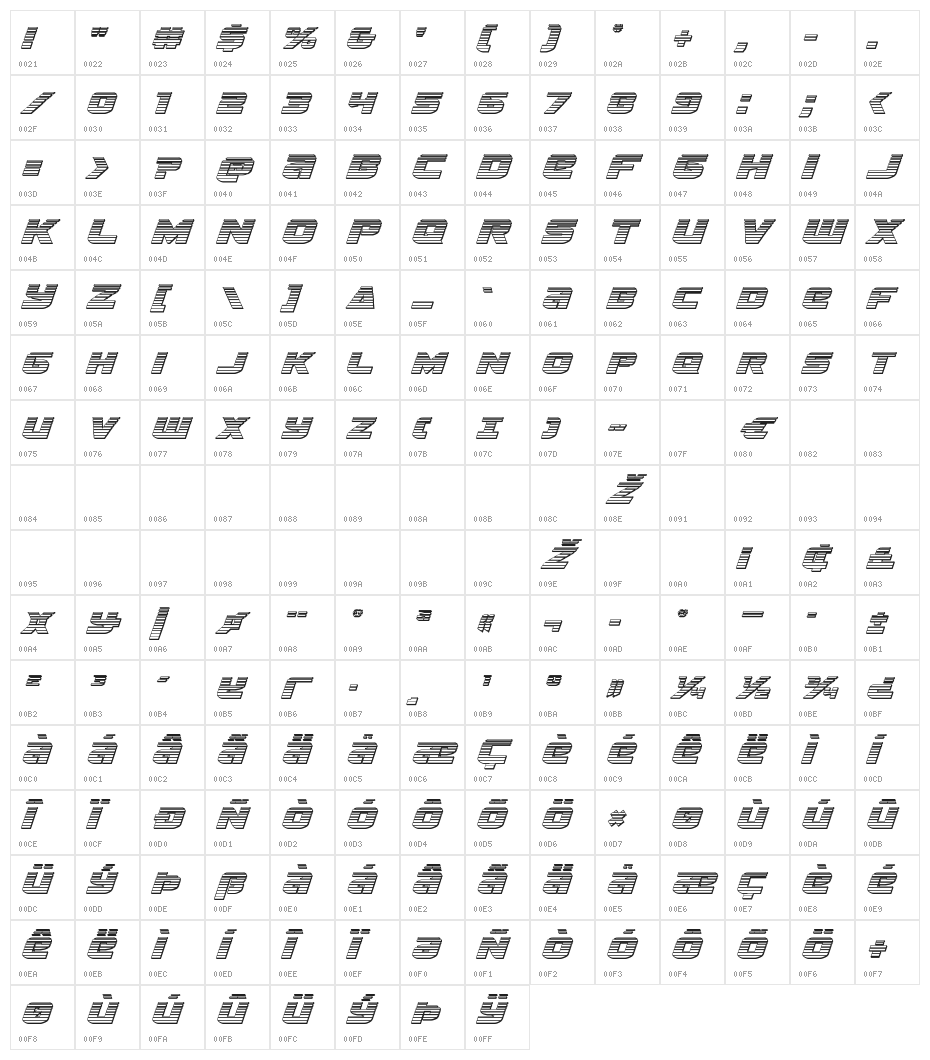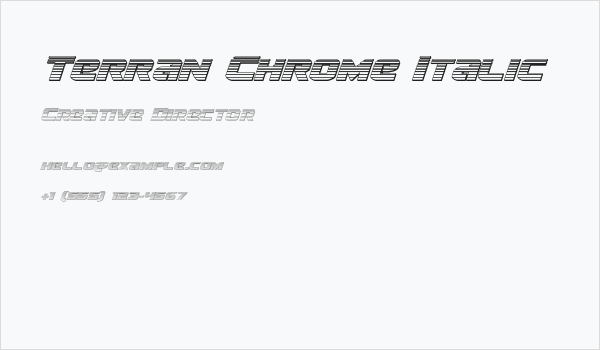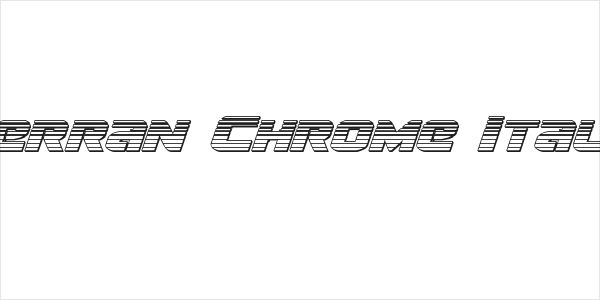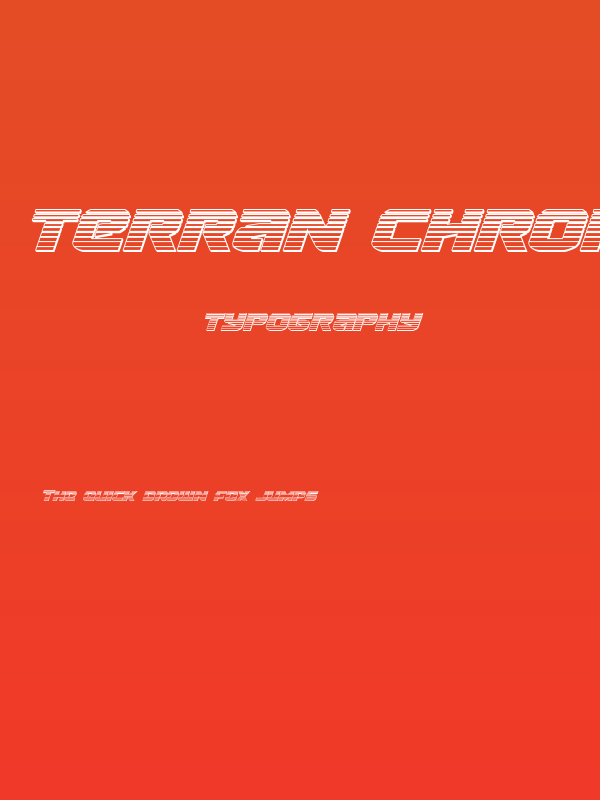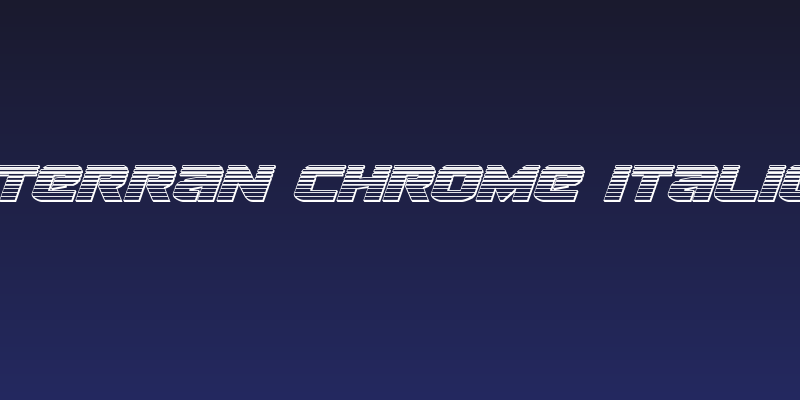
Terran Chrome Italic Font
Terran Chrome Italic Description
This font features a futuristic and dynamic design with a distinct italic slant. The characters are composed of parallel lines that create a sense of movement and speed, reminiscent of chrome or metallic surfaces. The uppercase and lowercase letters maintain a consistent style, with sharp angles and a sleek appearance. The numerals and special characters follow the same design principles, ensuring uniformity across all glyphs. This font's unique style makes it stand out, ideal for projects that require a modern and edgy look.
| Proposed Projects | Ideal for sci-fi themed designs, tech branding, video game titles, and futuristic posters. |